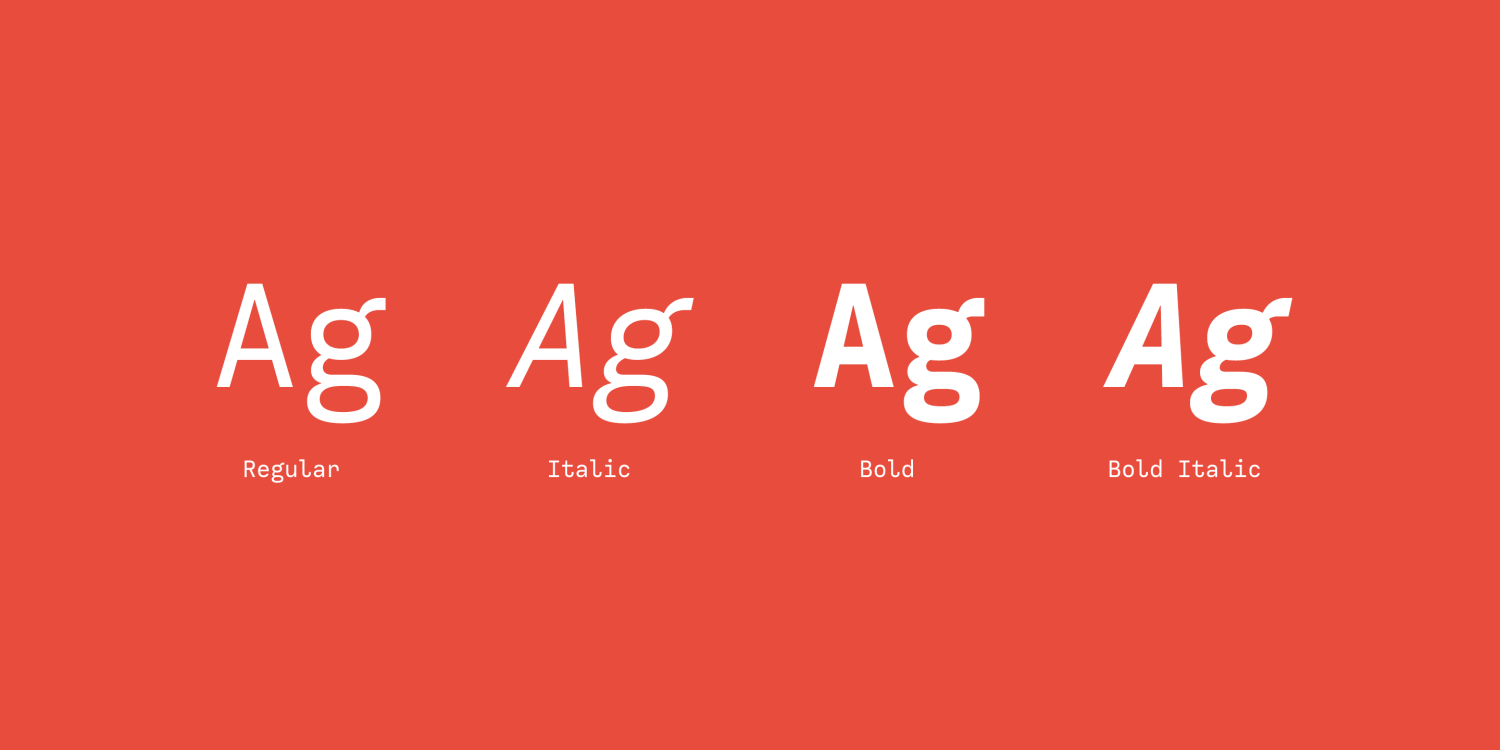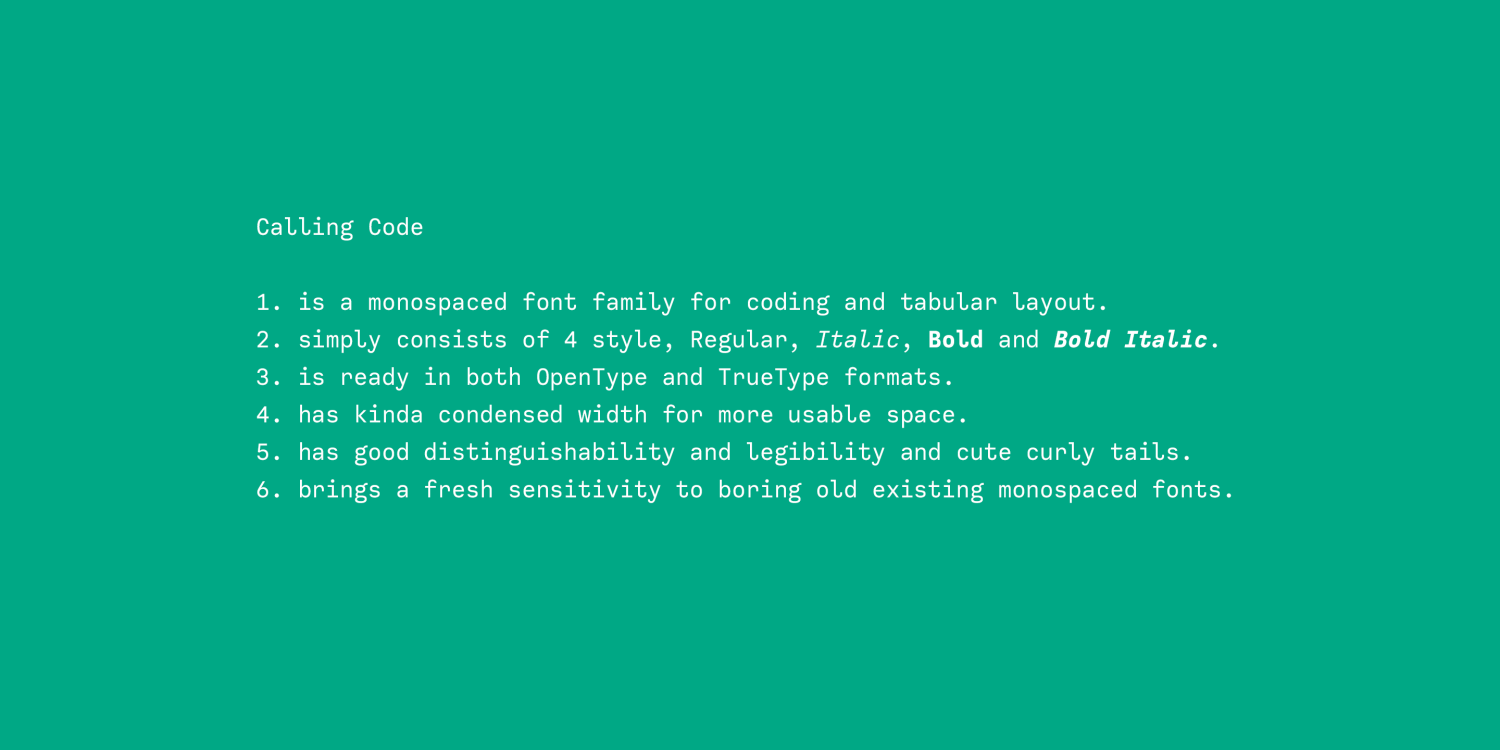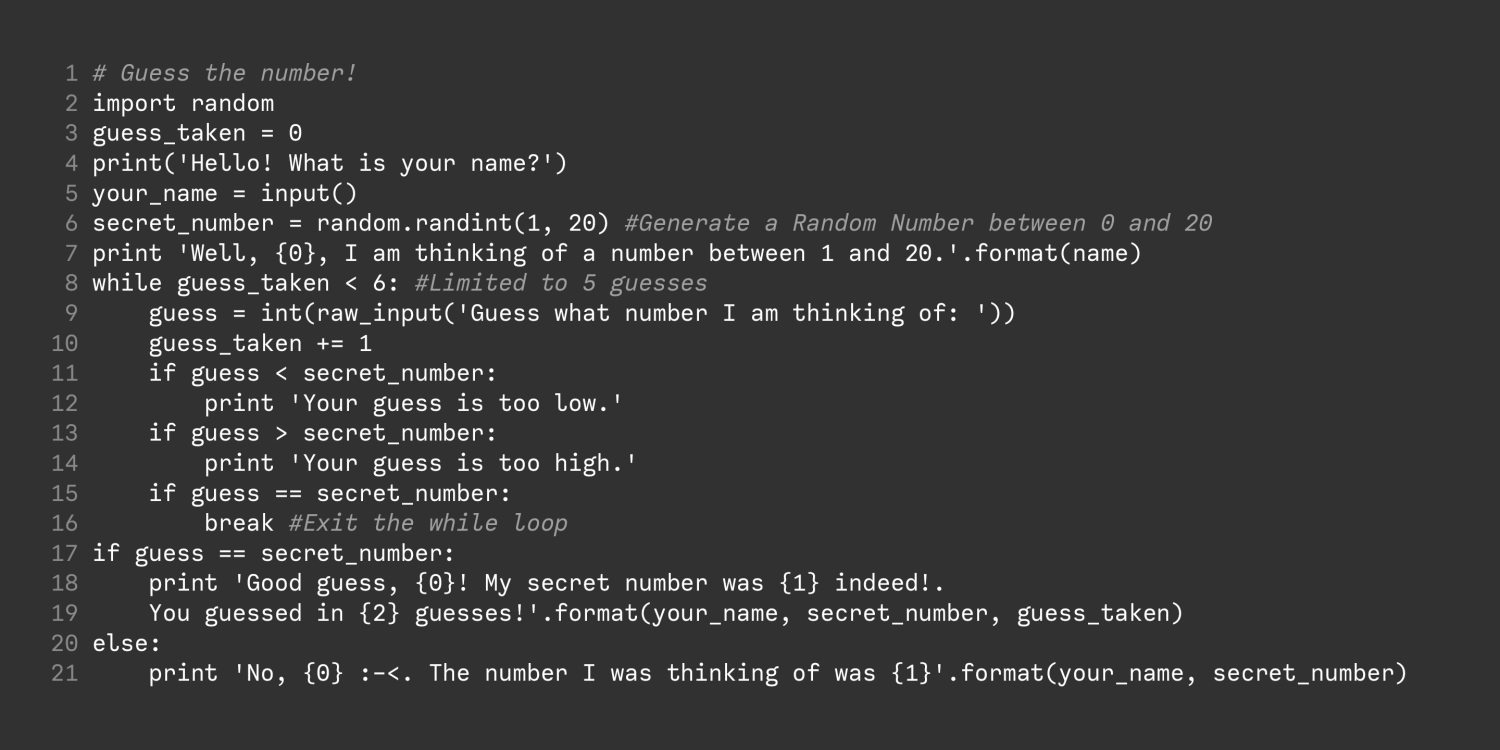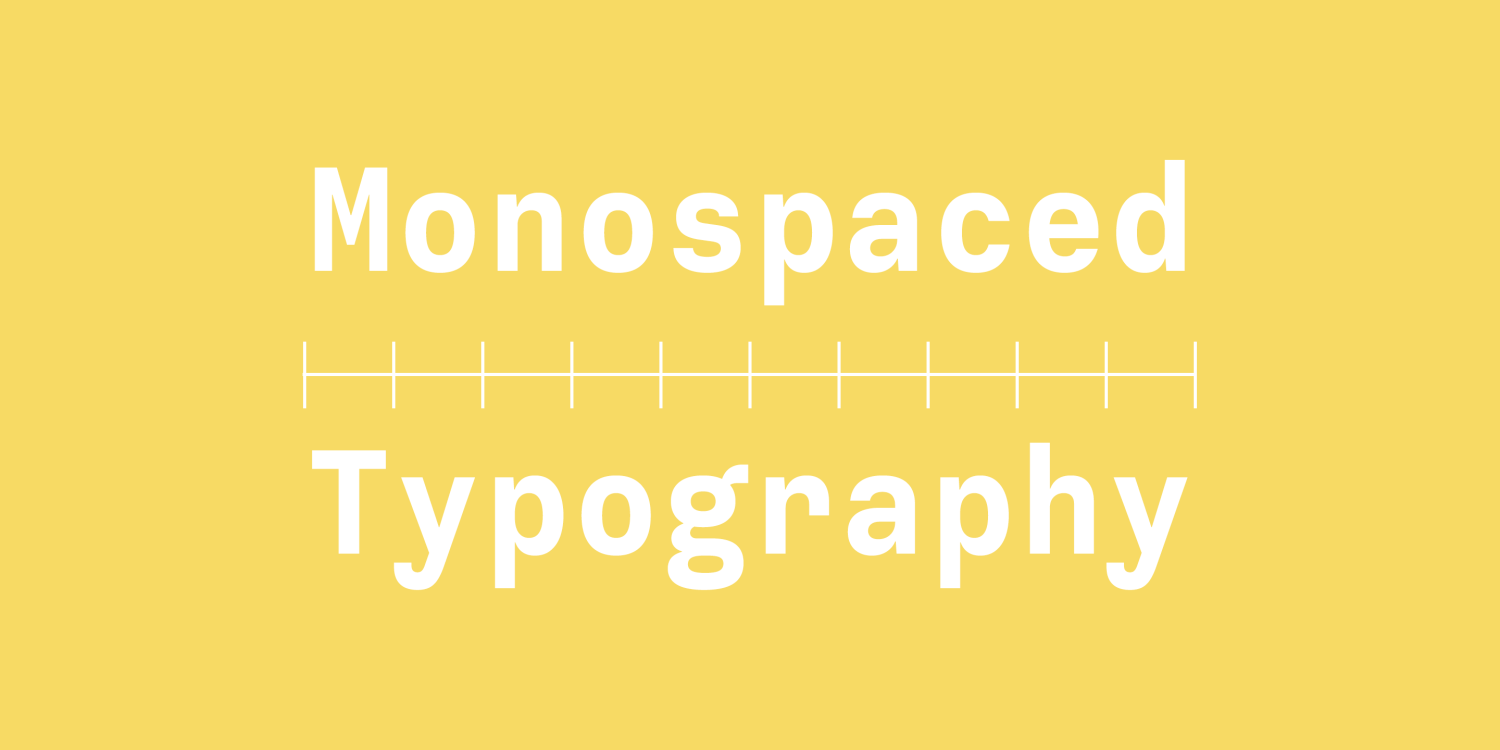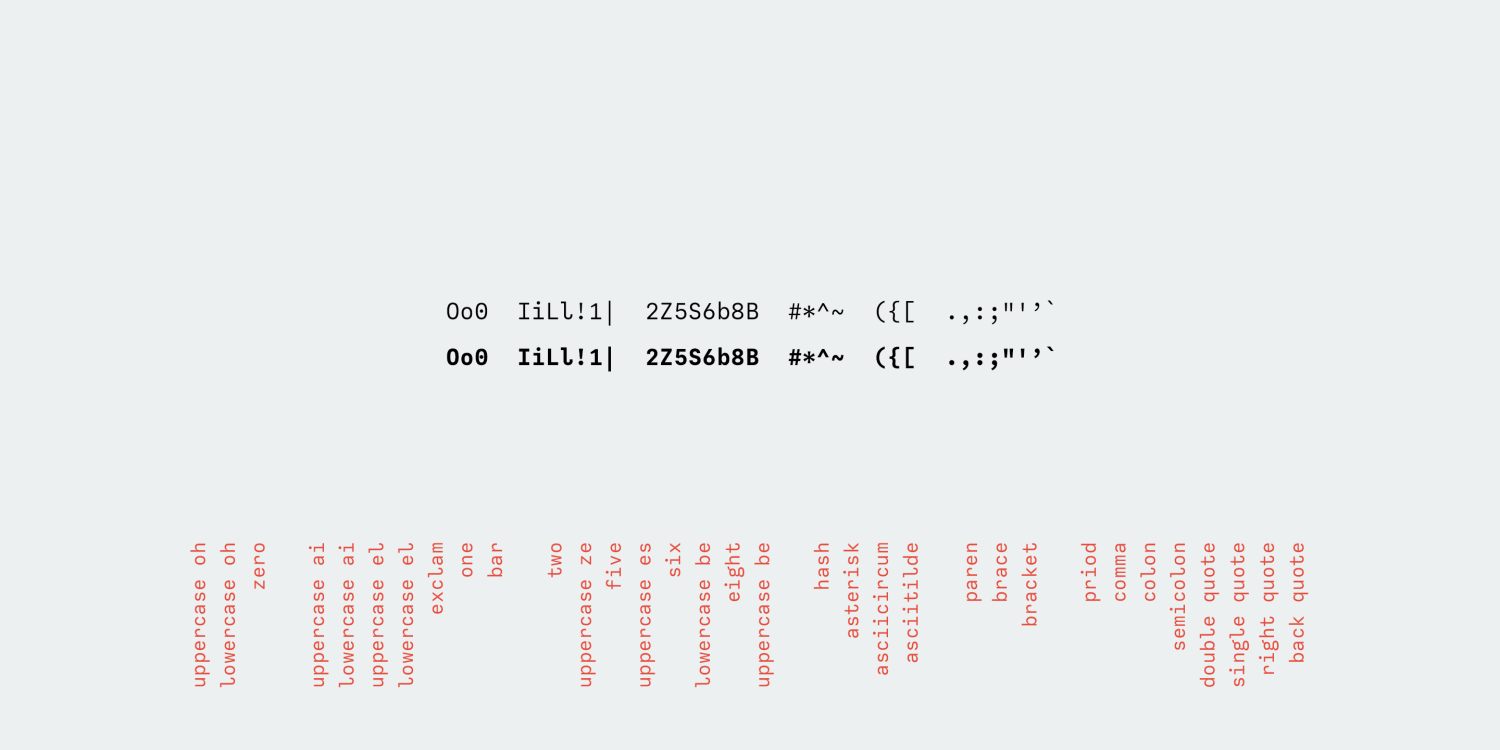
About Calling Code
Calling Code: a very nice monospaced font! 1. is a monospaced font family for coding and tabular layout. 2. simply consists of 4 style, Regular, Italic, Bold and Bold Italic. 3. is ready in both OpenType and TrueType formats. 4. has kinda condensed width…